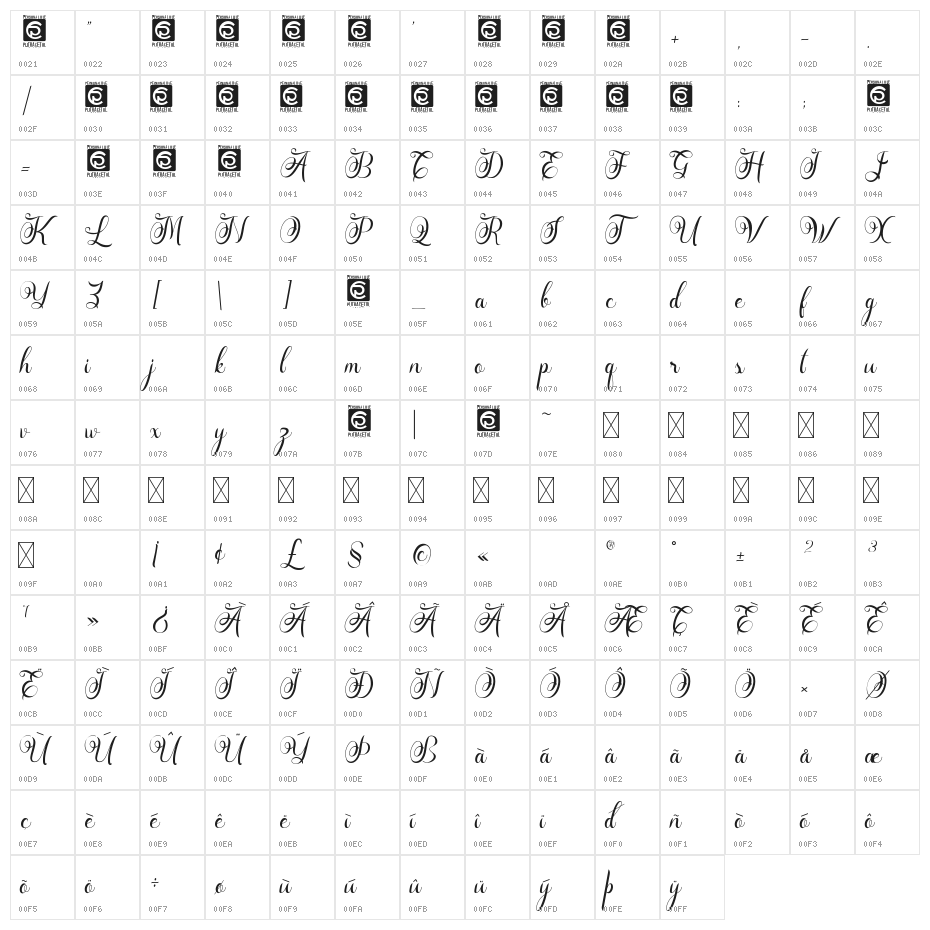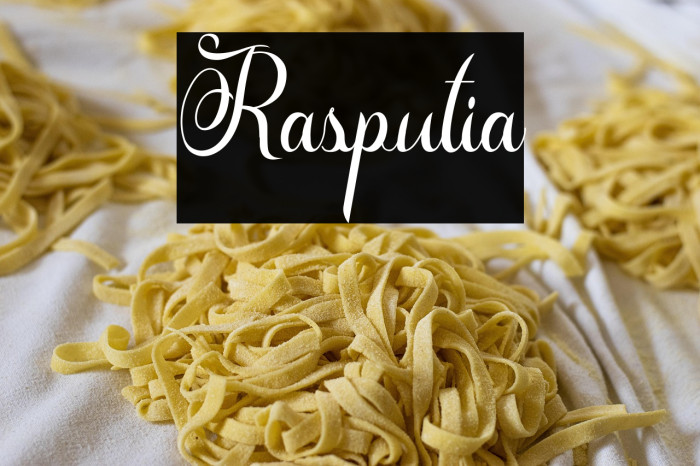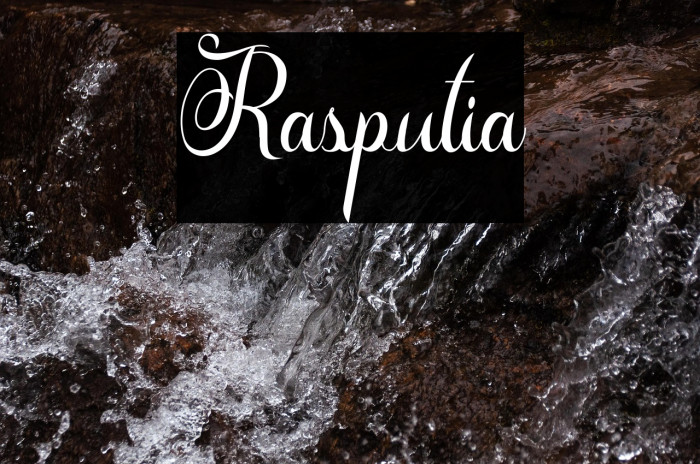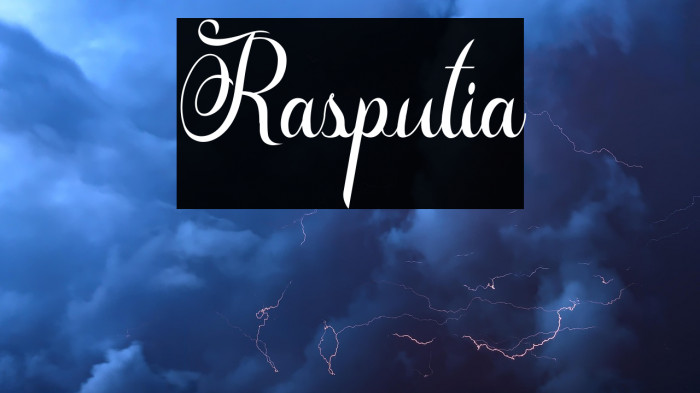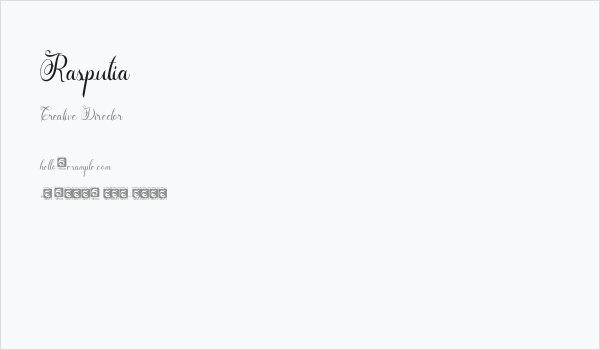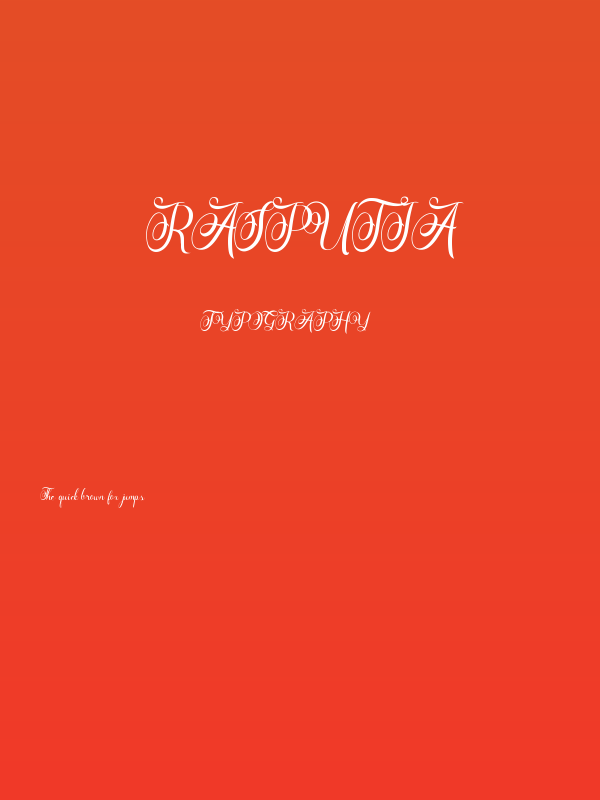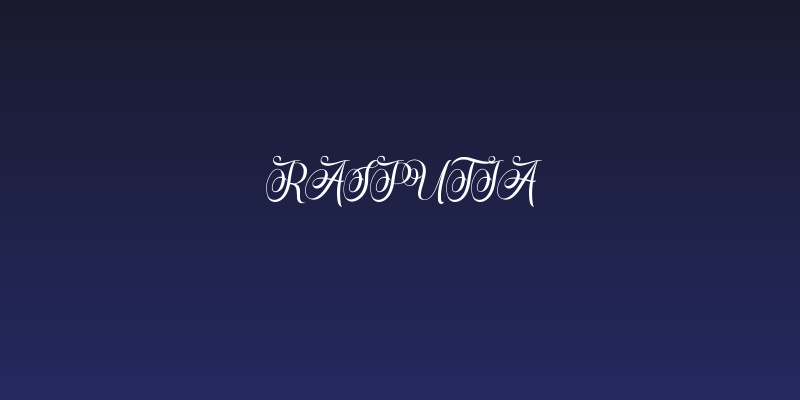
Rasputia Font
Rasputia Description
This elegant script font features a sophisticated and flowing design, characterized by its intricate swirls and loops. The uppercase letters are particularly ornate, with decorative flourishes that add a touch of luxury and refinement. The lowercase letters maintain a consistent style, with smooth, connected strokes that enhance readability while preserving the font's artistic flair. The numerals and special characters are designed to complement the overall aesthetic, ensuring a cohesive look across all text elements. This font is ideal for projects that require a touch of elegance and sophistication.
| Overall Style | Elegant |
| Use Case | Logos, Invitations, Decorative text |
| Proposed Projects | Wedding invitations, luxury branding, elegant packaging, and formal event materials. |